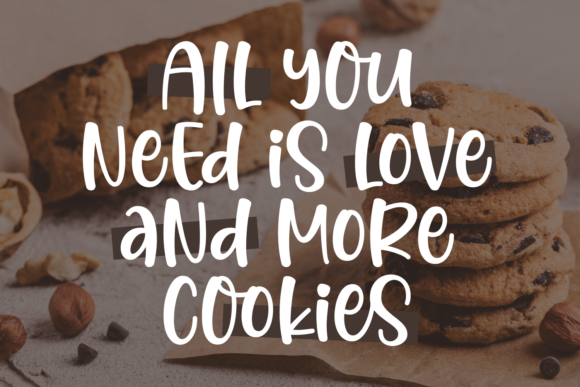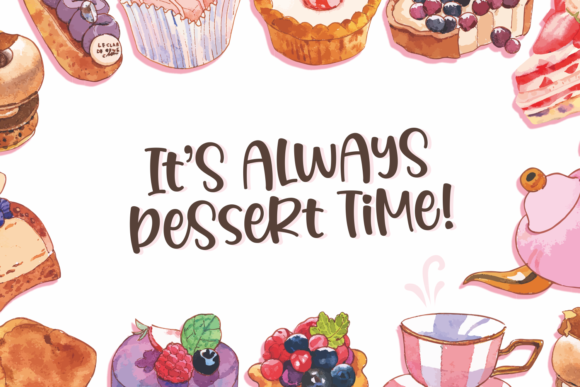
Little Cookies Font
Little Cookies is a fun and quirky display font. It can be used for a variety of designs that require joy and happiness. The only limit is your imagination.